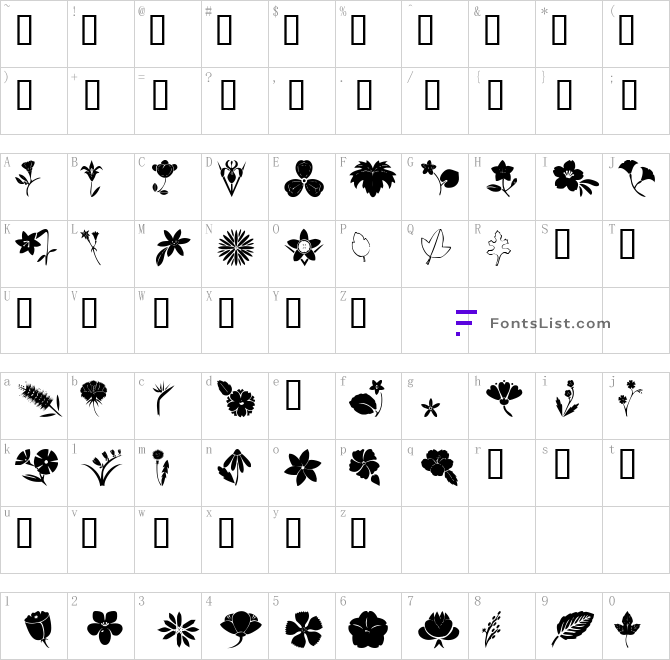
- Font Name:AEZ crimson and clover
AEZ-crimson-and-clover.ttf is a very beautiful artistic font, AEZ-crimson-and-clover.ttf is widely used in the design and printing of various books and pictures,AEZ-crimson-and-clover.ttf has a strong visual impact,AEZ-crimson-and-clover.ttf is a commonly used font in newspapers, magazines and books, and is used in posters, e-commerce Poster design, store design, logo design, font design and other fields.AEZ-crimson-and-clover.